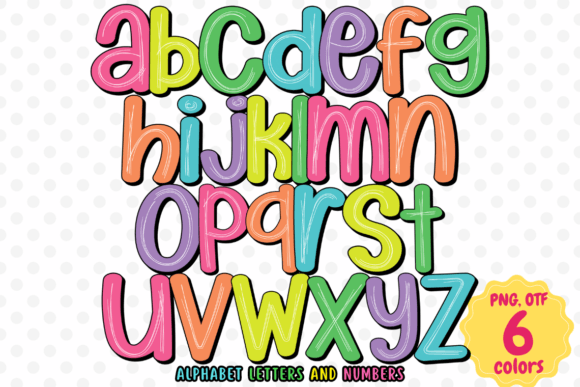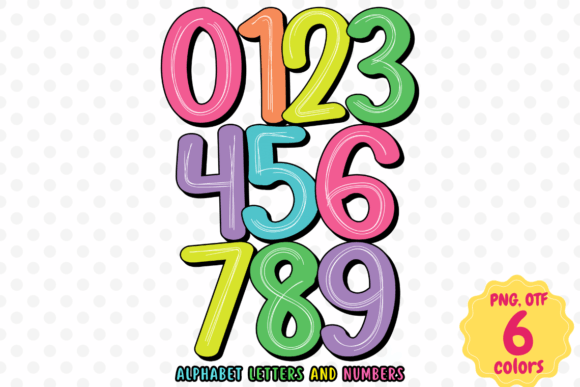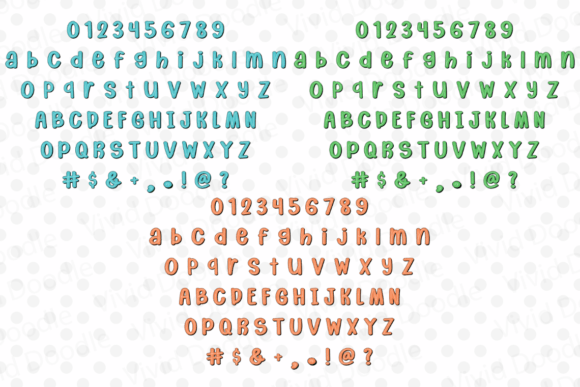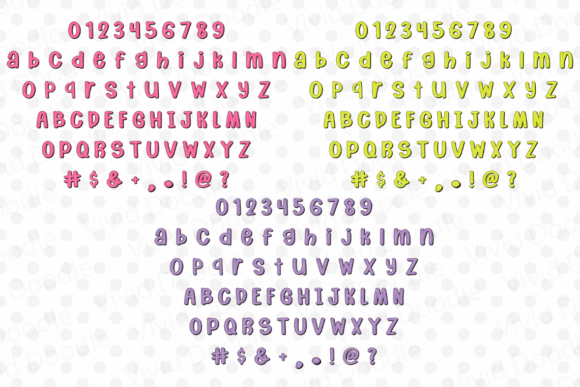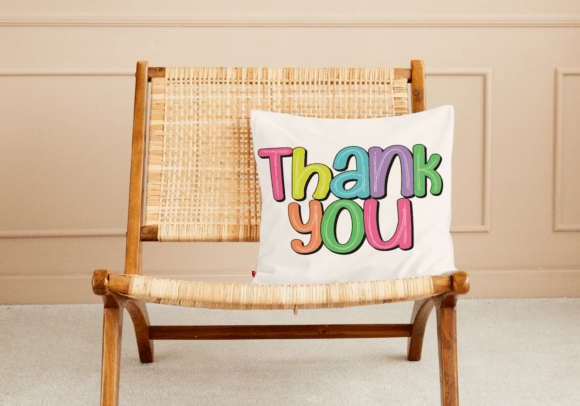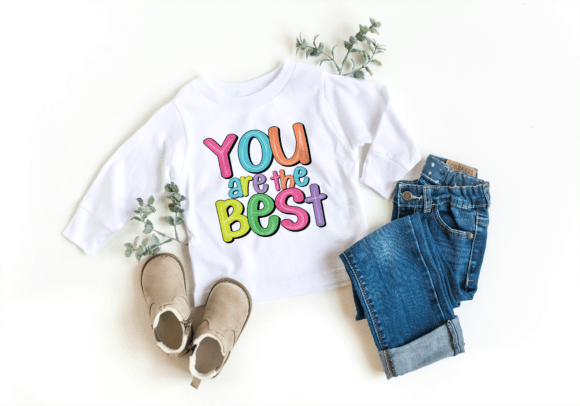
Unleash Your Creativity with the Bubble Rainbow Scribble Font
You know that moment when you’re brainstorming ideas and suddenly, a burst of color and whimsy sparks your creativity? That’s exactly what the “Bubble Rainbow Scribble” font is all about. This delightful typeface combines playful bubble letters with a charming scribble effect, wrapped in the vibrant colors of the rainbow.
Perfect for designers looking to add a touch of magic to their projects, the “Bubble Rainbow Scribble” font is a game-changer for children’s books, party invitations, posters, greeting cards, and more. Its lively and fun design is sure to captivate your audience and make your designs stand out from the crowd. Whether you’re a seasoned pro or just starting out, this color font is a valuable addition to your design toolkit.
- Unique Characteristics: This font features a playful, whimsical design with a mix of bubble letters and scribbles, perfect for adding a touch of fun to your designs.
Bubble Rainbow Scribble Font Review
I’ve had the chance to work with the Bubble Rainbow Scribble Font, and I must say it’s a unique addition to any design project. ✨ Here are a few things that really stand out to me:
- It’s perfect for adding a playful touch to children’s books, educational materials, or even social media graphics.
- The bubbly, hand-drawn feel of the font lends itself well to creative projects that require a sense of whimsy and imagination.
- The color palette is vibrant and fun, making it a great choice for brands that want to appeal to a younger audience.
- The font may not be the best choice for formal or professional projects, as it can come across as too casual.
- The varying line weights and irregular letterforms can make it difficult to achieve perfect kerning and alignment.
- The font may not be compatible with all font rendering systems or devices, which could lead to inconsistencies in how the font appears.
Overall, I think the Bubble Rainbow Scribble Font is a fun and creative choice for the right projects. While it may have its limitations, it’s definitely a great option for designers looking to add some personality to their work.
The Bubble Rainbow Scribble Font is ideal for:
- Handmade cards and gift tags.
- Social media graphics and posts.
- DIY crafts and art projects.
Remember to have fun and experiment with different font combinations and styles to create unique and eye-catching designs!